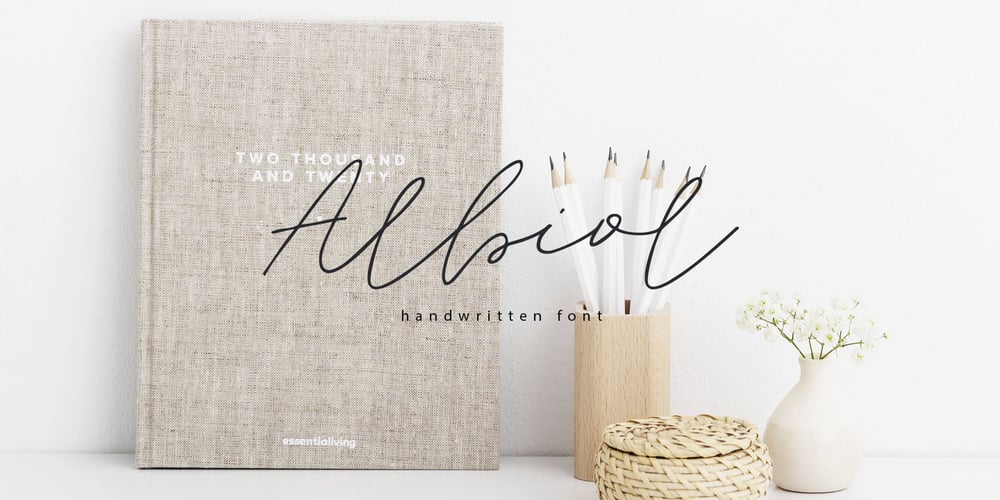
Albiol
Albiol font
Albiol Font Family was designed by Hleb Zhyhunou and published by Mr. Typeman. Albiol contains 1 styles and family package options. Create your own design by choosing this wonderful handwritten font. Albiol has an effortless yet refined quality, making it an excellent fit for projects of all types.